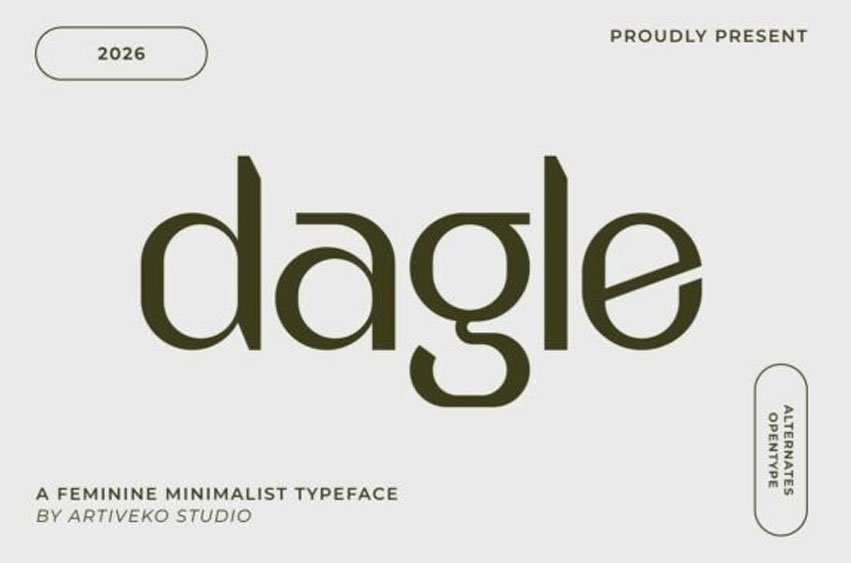
Dagle Font
Dagle Font is a minimalist feminine sans serif typeface designed to express elegance through simplicity.
Featuring refined letterforms, clean lines, and harmonious proportions, Dagle delivers a soft yet confident personality that perfectly complements modern feminine branding.